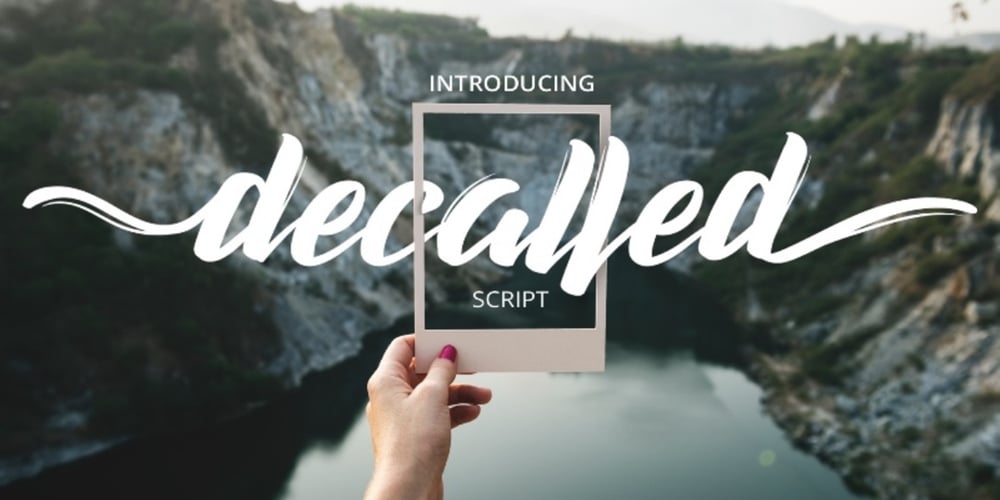
Decalled script
Decalled script font
Decalled script Font Family was designed by Mokhamad Junaedi and published by SemutHitam. Decalled script contains 1 styles and family package options. Introducing Decalled Script.Decalled Script is sharp and elegant font script. Comes with many opentype feature, upper and lower case standard character, punctuation and numerals, multilingual characters, ligatures, stylistic alternates, swash, and many more glyph.Perfect for personal and commercial use your company logo, branding, poster, flyers, greetings, invitation, book cover, quotes, and many more.We hope you enjoy with Decalled Script. Feel free to comment and give any feedback to build more good font. Thanks for your purchasing, and Happy creating… ๐Ÿ™‚